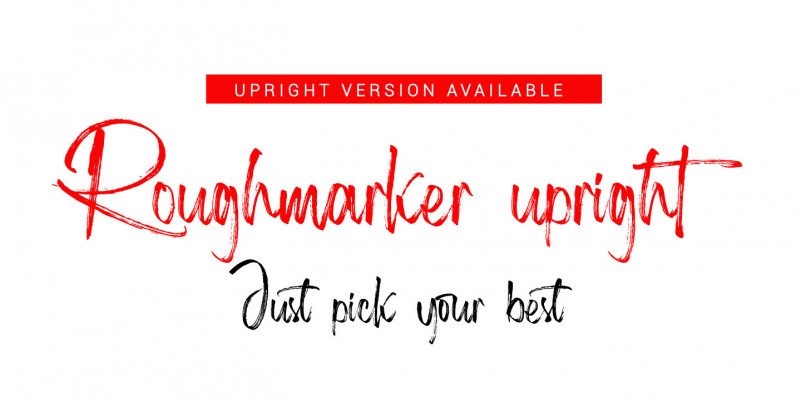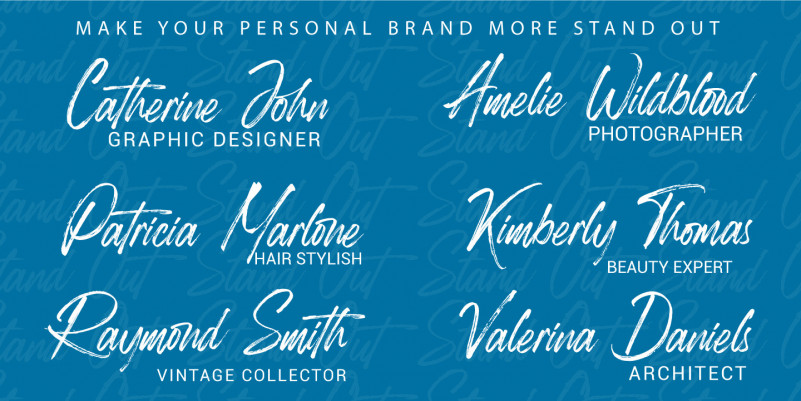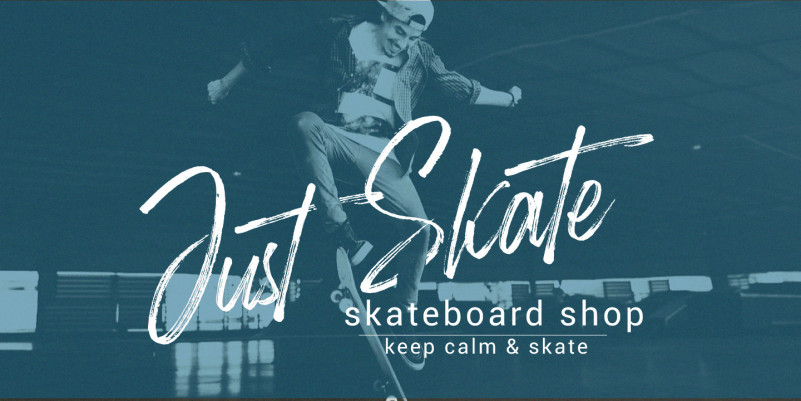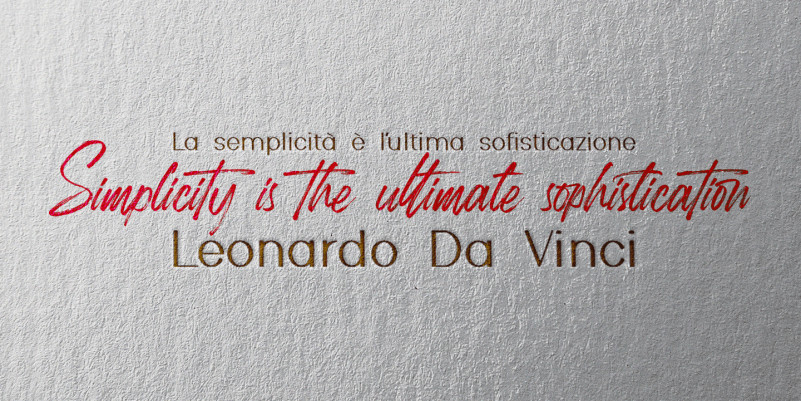
Roughmarker Brush Font consists of two handwritten scripts, a slant (regular) version and upright. This font is a great choice for contemporary brands, especially for businesses in fashion, urban style, websites, trends in architecture, cosmetics, and energetic lifestyle themes. An attractive typographic layout makes it also looks more premium in writing quotes.